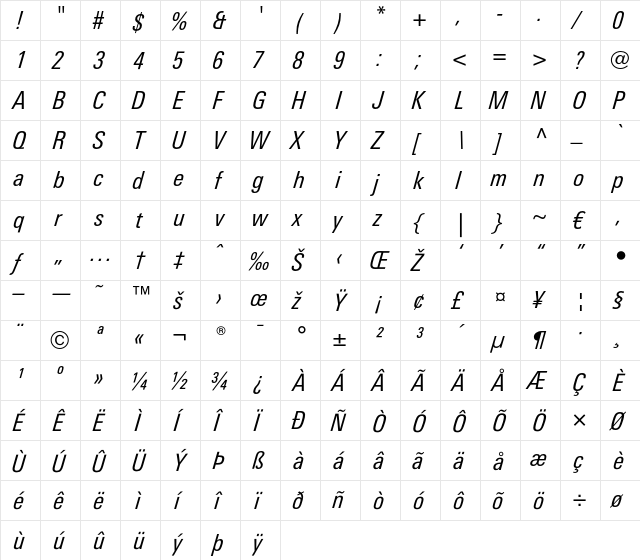
LTUnivers 421 CondRegularIt Font Preview
LTUnivers 421 CondRegularIt
Design Context for LTUnivers Typeface
LTUnivers takes a measured approach to typography — its balanced proportions and neutral character make it a reliable workhorse for both digital and print work. Its narrow stance lets it pack a punch even in space-constrained designs.